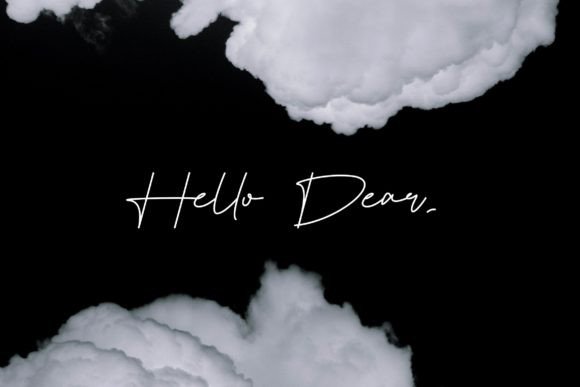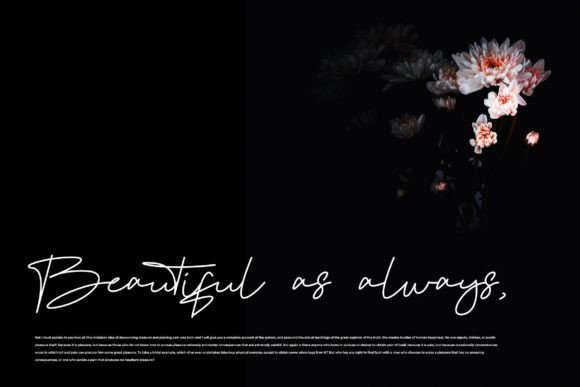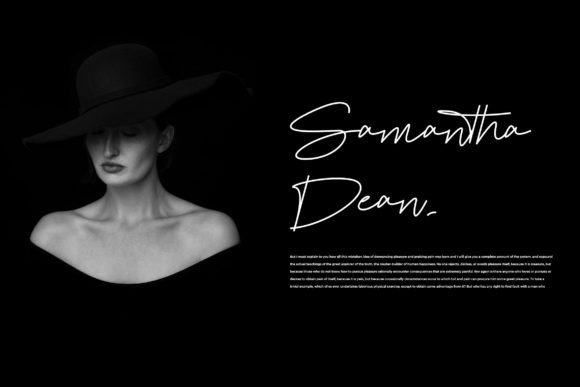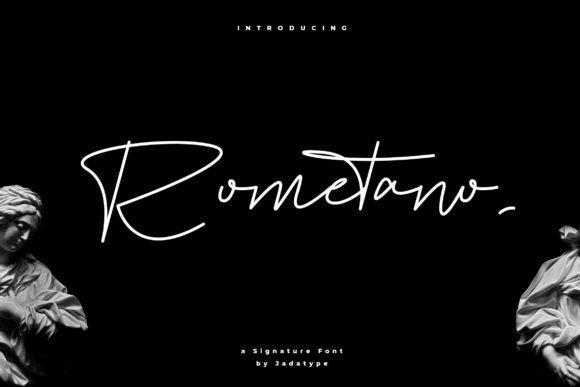
Introduction to Rometano Font
Rometano is a signature font with natural lines.
It gives the impression of being serious, elegant, and refined This splendid typeface can be used for your shirt design, social media, books, invitation cards, events, crafts, and others.